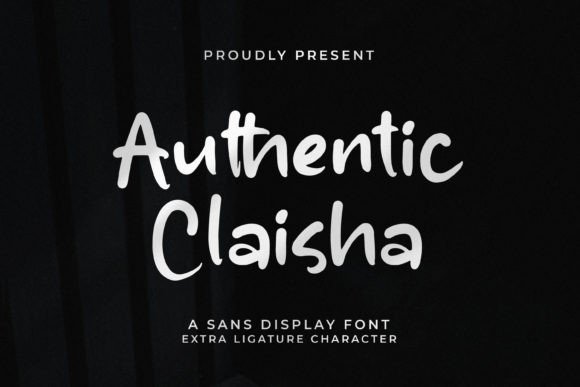
Looking to add a touch of playfulness and casual charm to your designs? Look no further than Authentic Claisha Font, a stunning display font that is sure to captivate your audience. Created by integritypestudio, this font is the perfect choice for those who are in search of the best fonts for poster headings.
Authentic Claisha Font exudes a cheerful and bright energy that will instantly uplift any design. Its handwritten style adds a personal and authentic touch, making your text feel more intimate and engaging. Whether you are designing posters, social media graphics, or even branding materials, this font will effortlessly enhance your creations.
One of the standout features of Authentic Claisha Font is its versatility. It can be used across a wide spectrum of applications, allowing you to unleash your creativity without any limitations. From playful children's book covers to eye-catching event flyers, this font adapts seamlessly to different design themes and purposes.
What sets Authentic Claisha Font apart is its ability to evoke emotions in your audience. With its playful strokes and casual demeanor, it creates a sense of joy and lightheartedness that is sure to leave a lasting impression. Imagine the smiles it will bring to the faces of those who encounter your designs. Whether you want to convey a sense of excitement, warmth, or friendliness, this font has got you covered.
Furthermore, Authentic Claisha Font is designed with your convenience in mind. It is incredibly easy to use, saving you precious time and effort. You can effortlessly incorporate it into your favorite design software and start creating stunning visuals right away. Its legibility ensures that your message remains clear and impactful, while its unique style adds that extra flair.
In conclusion, if you are searching for the best fonts for poster headings, look no further than Authentic Claisha Font. Its playful and casual nature, along with its versatility and ability to evoke emotions, make it the perfect choice for designers and creatives alike. Experience the joy and impact this font can bring to your designs, and let your imagination run wild. Download Authentic Claisha Font today and elevate your design game to new heights!